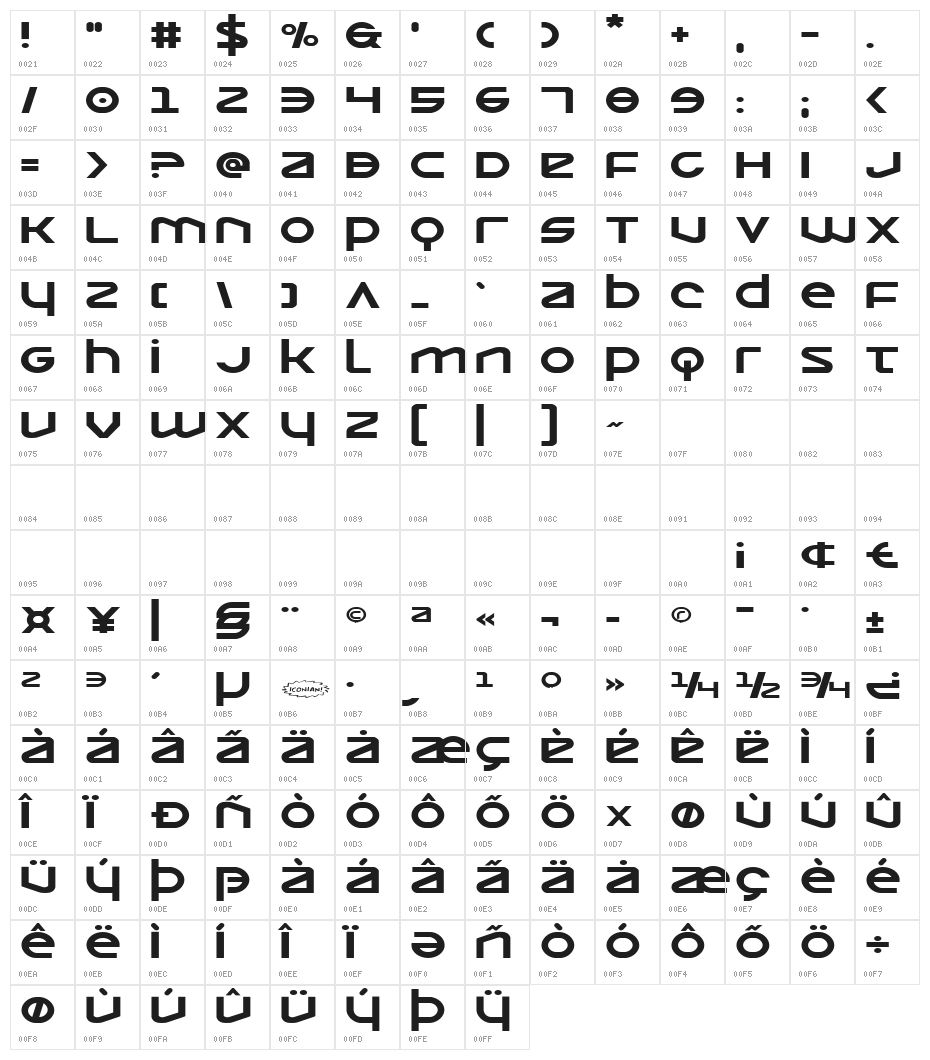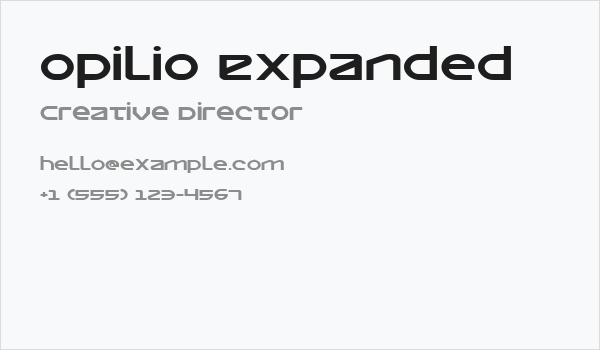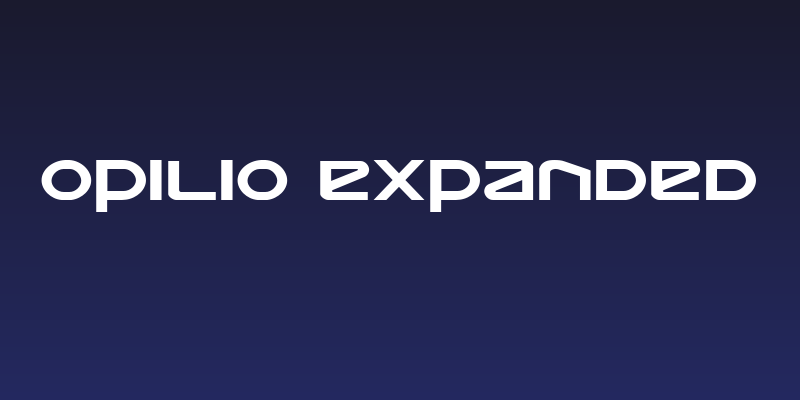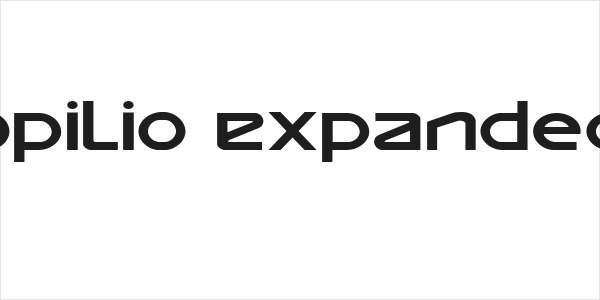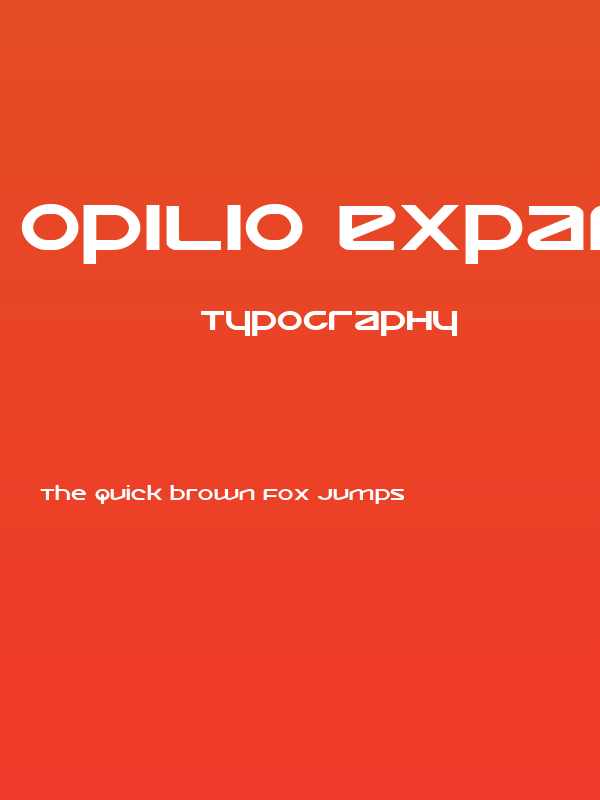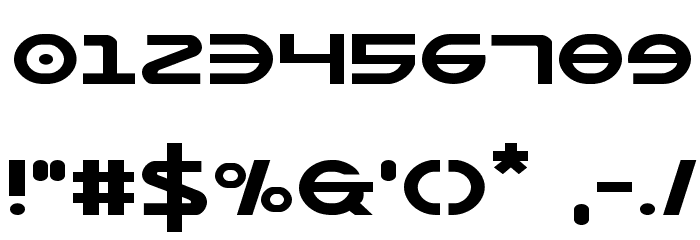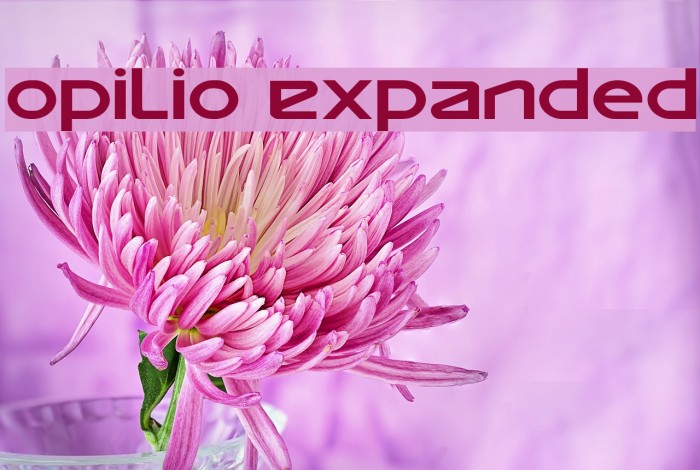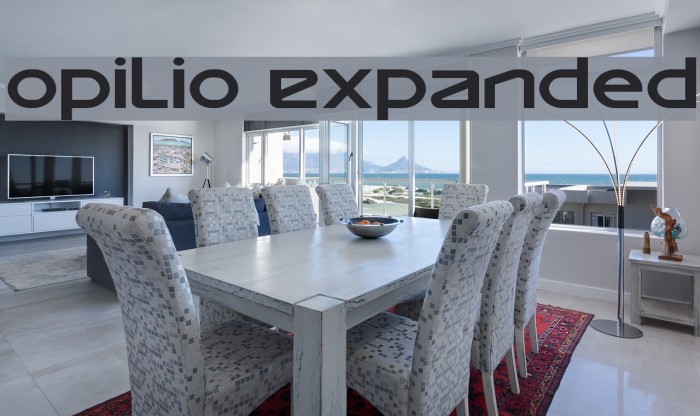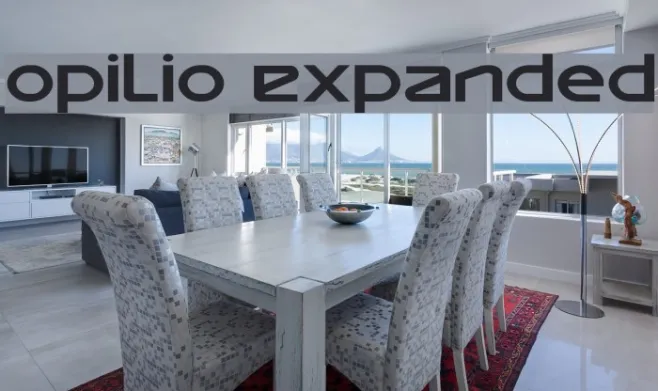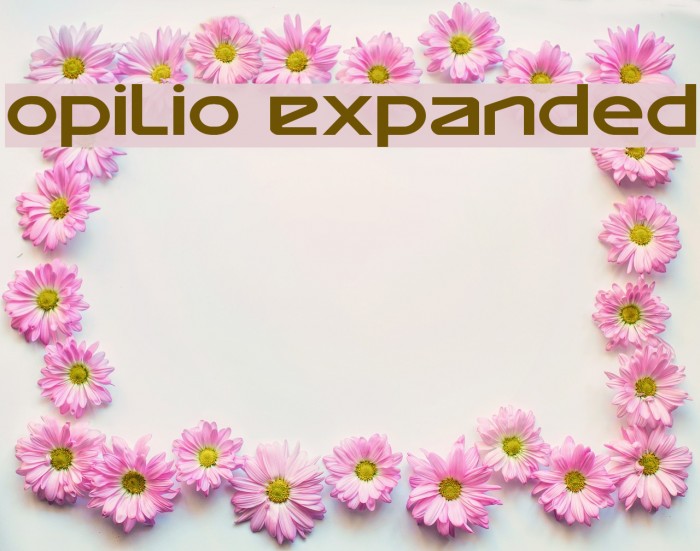
Opilio Expanded Font
Opilio Expanded Description
This font features a bold and geometric design with a futuristic flair. The characters are constructed with sharp angles and clean lines, giving it a modern and edgy appearance. The uppercase and lowercase letters maintain a consistent style, with unique elements such as the angular cuts in letters like 'A', 'B', and 'E'. The numbers are equally bold and follow the same geometric theme, ensuring uniformity across the font. Special characters are designed to match the overall aesthetic, making it suitable for a variety of creative applications.
| Proposed Projects | Ideal for technology branding, sci-fi themed projects, modern posters, and digital media. |